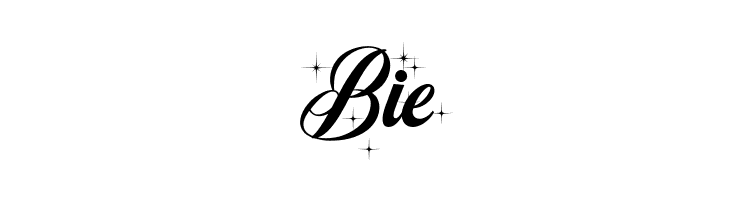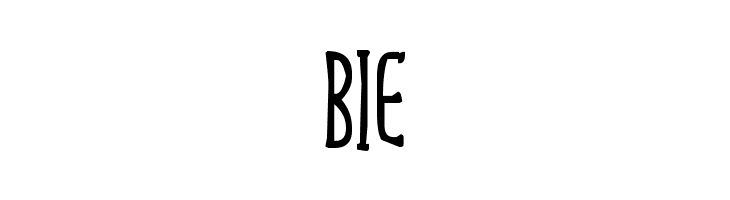
• Monday Party
A playful, hand-drawn font with tall, narrow letters and a whimsical style.
• Lovely sunday Demo
A playful, bold font with rounded uppercase and cursive lowercase letters.
• Santa Claus Deco PERSONAL USE
A festive decorative font featuring detailed holiday-themed symbols and icons.
• Christmas Reign Deco PERSONAL
An ornate, festive font with decorative flourishes and holiday-themed embellishments.
• Christmas Sparkle PERSONAL USE
A festive, sparkling script font ideal for holiday designs.
• Sunday Serve Free Regular
A bold, expressive script font with dynamic, flowing letterforms.
• Cherish Today
A playful, rounded font with smooth curves and a friendly appearance.
• Welcome Everyday
A playful, hand-drawn font with tall, narrow characters and a whimsical style.
• Our Happy Holiday
A playful, handwritten font with tall, narrow letters and consistent stroke width.
• Holiday Romance Demo
A bold, fluid script font with a lively, handwritten style.